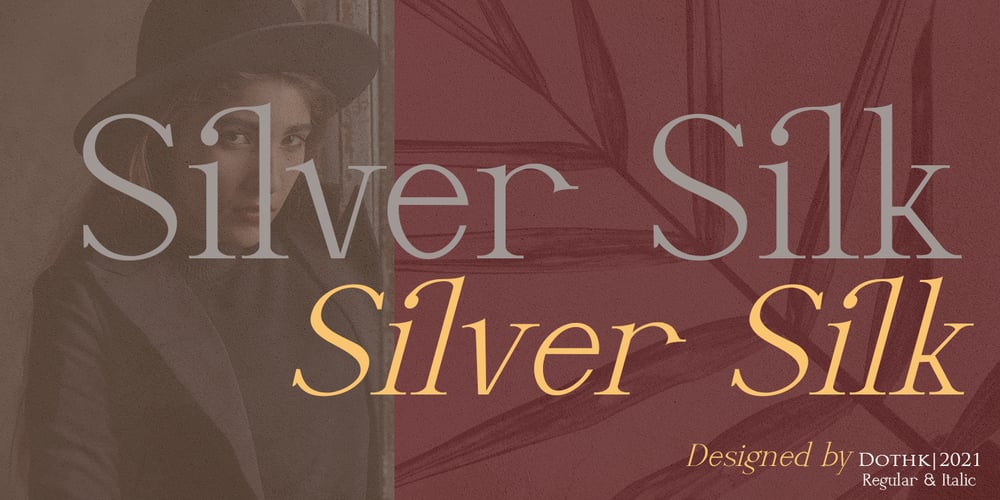
Silver Silk
Silver Silk font
Silver Silk Font Family was designed by Ariefr Munandar and published by dotHK Studio. Silver Silk contains 2 styles and family package options. Silver Silk is the latest Modern Serif Font from Dothk Studio, made with strong and assertive characters, giving it a beautiful and easy-to-read impression. Silver Silk has over 371 Glyphs that can support a wide range of Latinos. And also contains some features OpenType, Ligature, Numbers, Accents and others. To use a variety of flying machines, you need a program that supports OpenType features such as Adobe Photoshop Cs / Adobe Photoshop CC,Adobe Illustrator CS / Adobe Illustrator CC, Adobe Indesign, and CorelDraw and many more programs that support OpenType. If you do not have a program that supports OpenType, you can accessall the alternate glyphs using Font Book (Mac) or Character MapThanks and happy designingThank You for your purchase!Arief.hk | Alivecreative